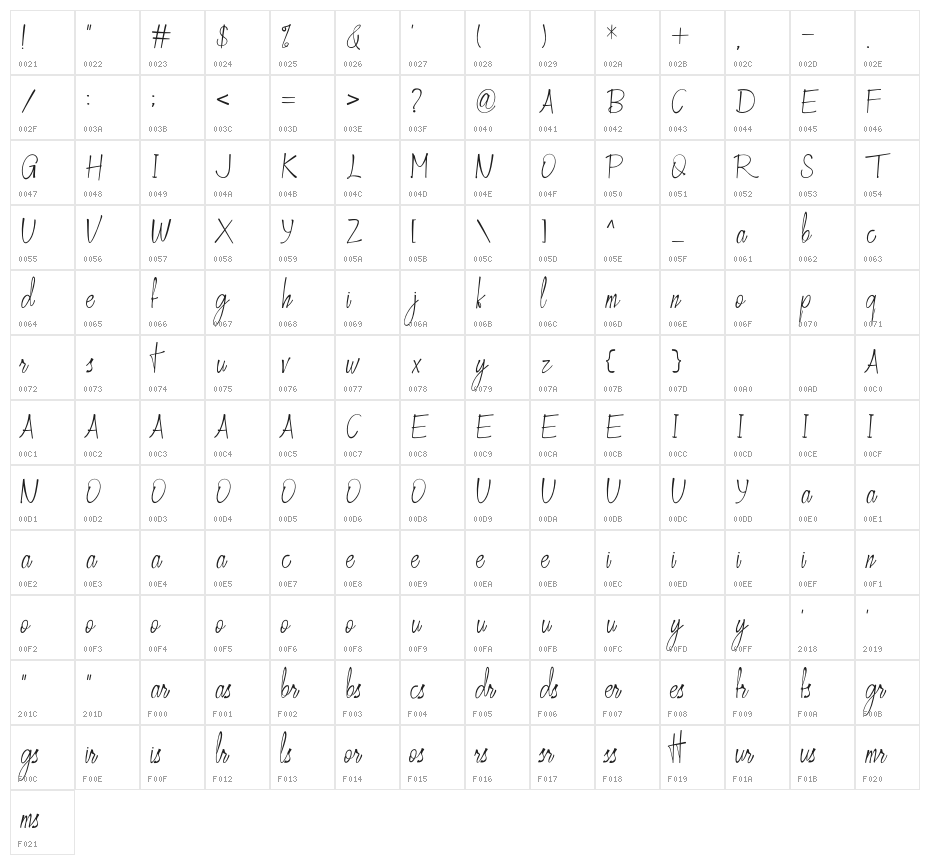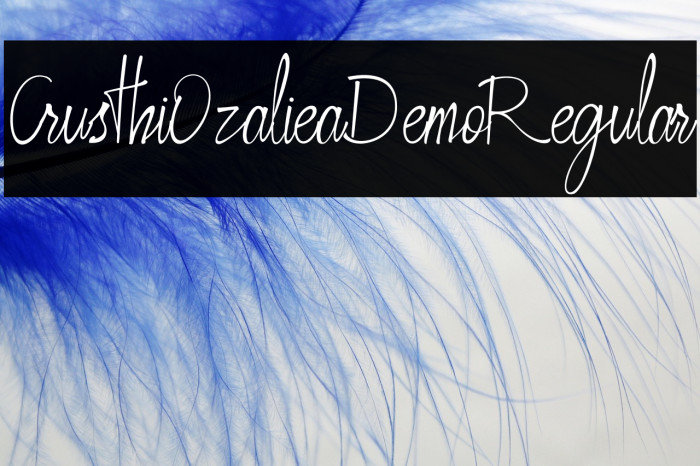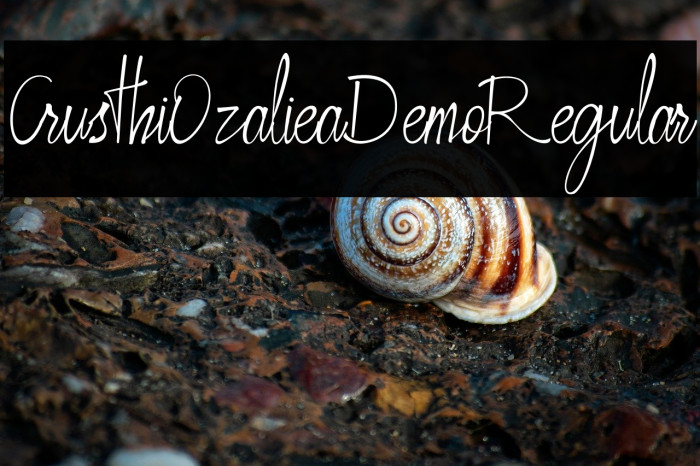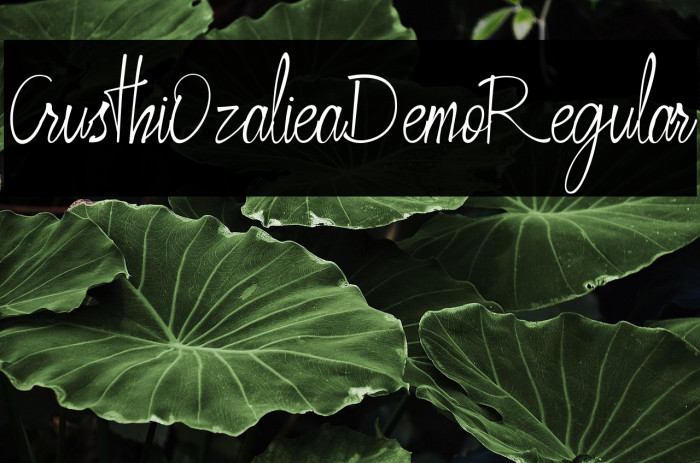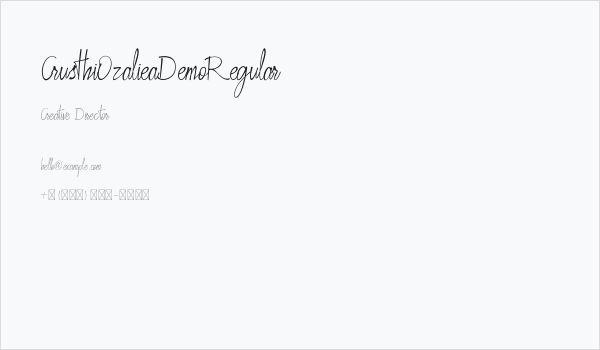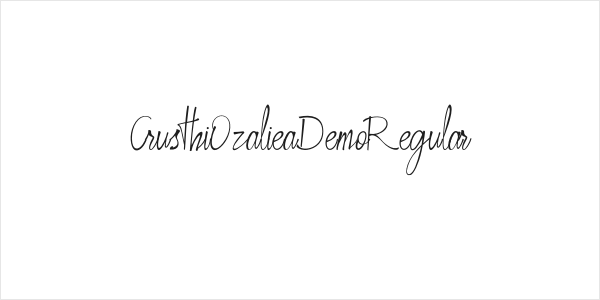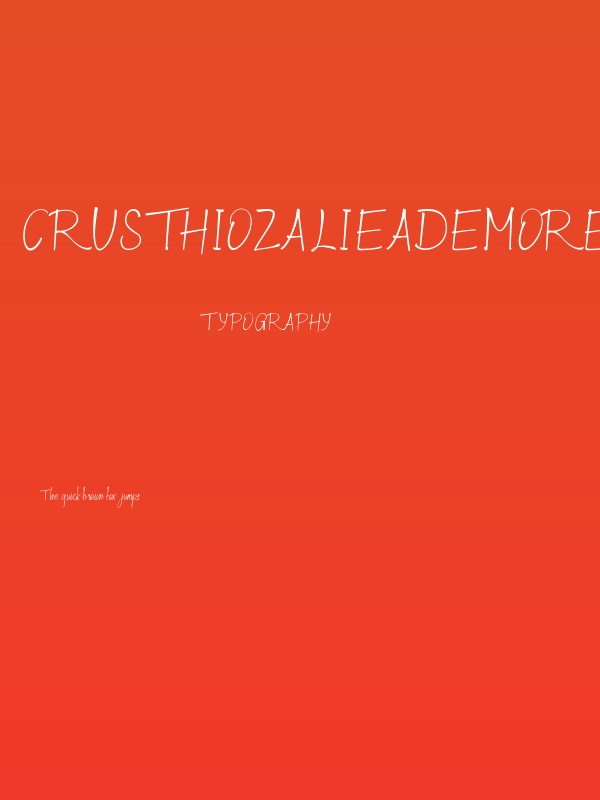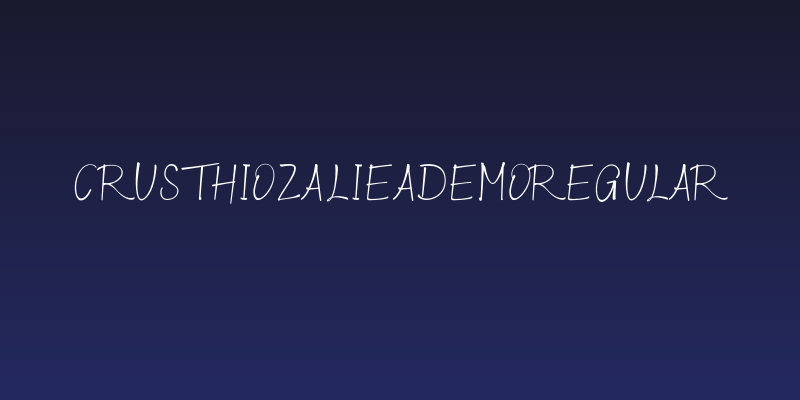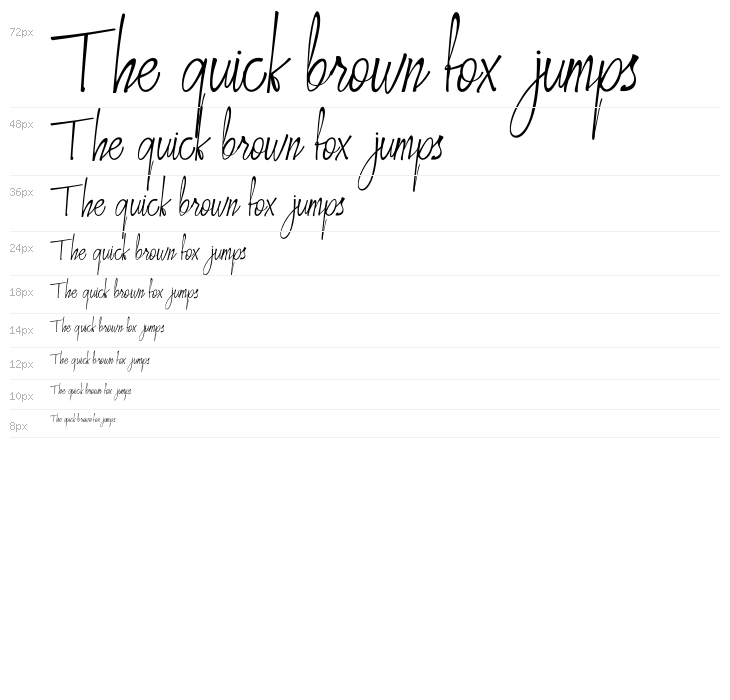
CrusthiOzalieaDemoRegular Font
CrusthiOzalieaDemoRegular Description
This font features a unique blend of handwritten and script styles, characterized by its elegant and flowing letterforms. The uppercase letters are tall and slightly narrow, with a playful yet sophisticated appearance. The lowercase letters exhibit a cursive style with smooth, connected strokes, adding a touch of elegance and fluidity. The font maintains a consistent stroke width, providing a balanced and harmonious look. Special characters are designed with the same attention to detail, ensuring they complement the overall style. This font is ideal for projects that require a personal and artistic touch.
| Overall Style | Elegant, Artistic |
| Proposed Projects | Ideal for wedding invitations, greeting cards, personal branding, and artistic projects. |